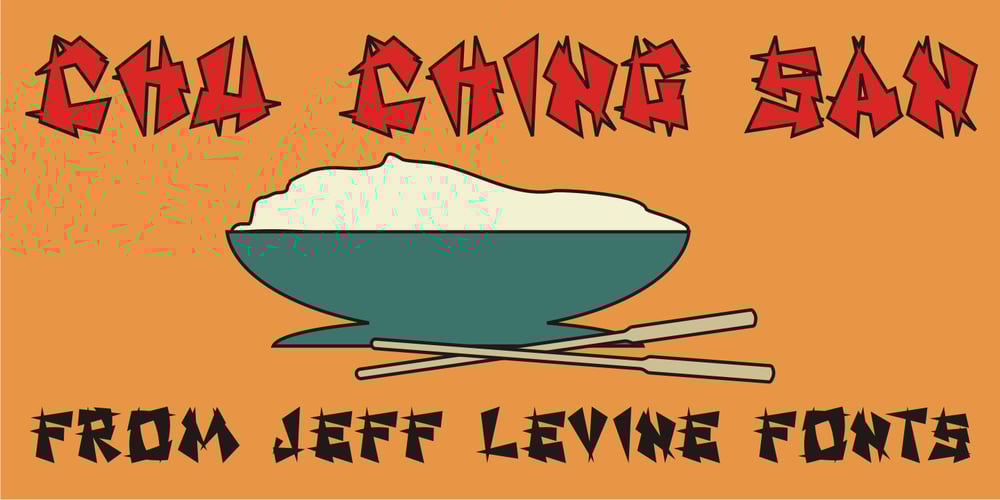
Chu Ching San JNL Font Family was designed by Jeff Levine and published by Jeff Levine. Chu Ching San JNL contains 1 styles and family package options. Novelty songs and their often crazy or extra-long titles were all the rage at the beginning of the 20th century. A piece of sheet music for the 1920 song “When Chu-Ching-San weds Paddy McCann” had the title hand lettered in an unusually bold form of Asian-inspired lettering. This has been recreated digitally as the type font named for the song – Chu Ching San JNL.